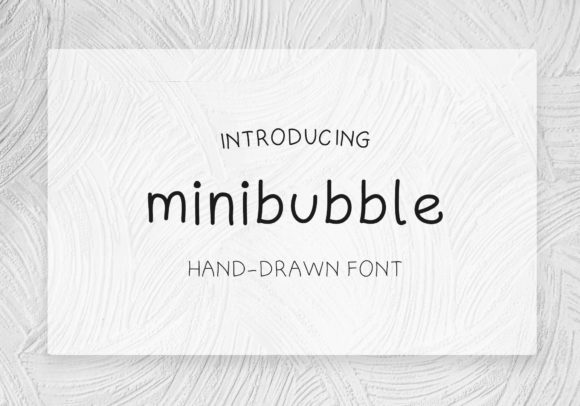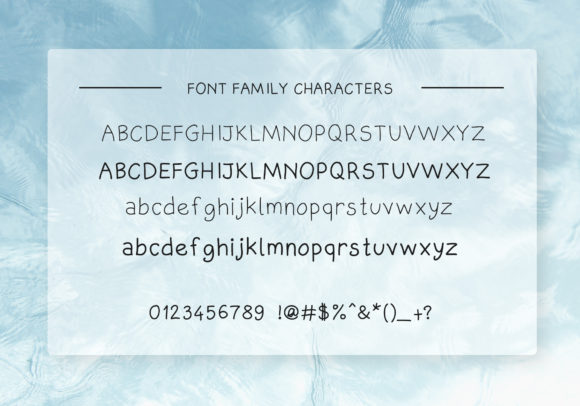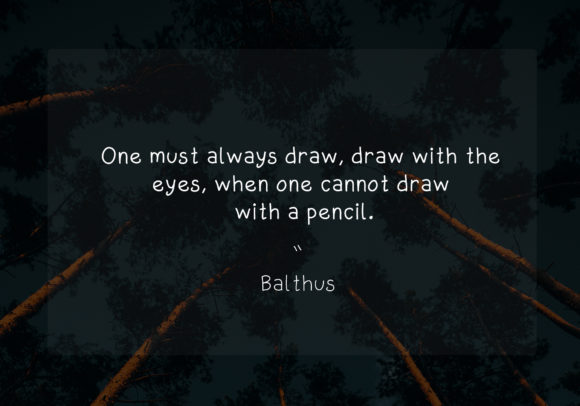
Minibubble Font
About Minibubble Font
Minibubble is a delicate, elegant and flowing handwritten font. It has beautiful and well balanced characters and as a result, it matches a wide pool of designs. Add it to your most creative ideas and notice how it makes them come alive!